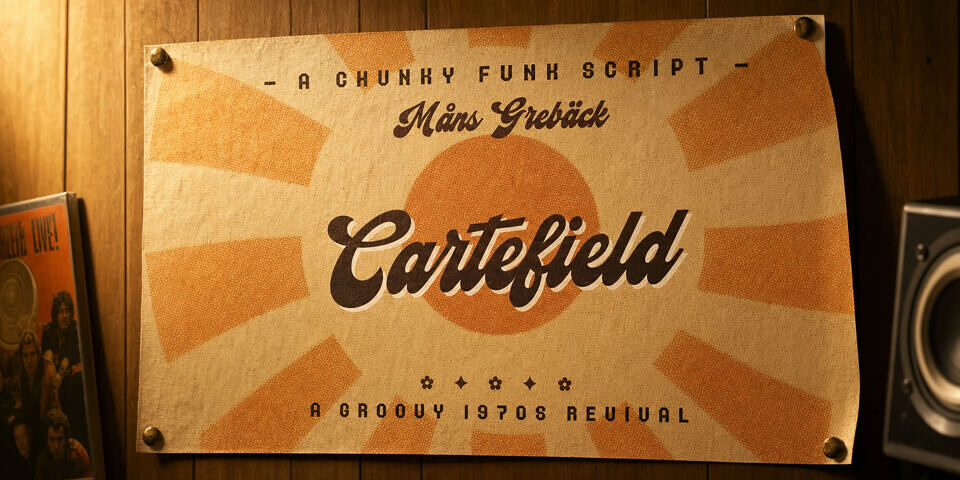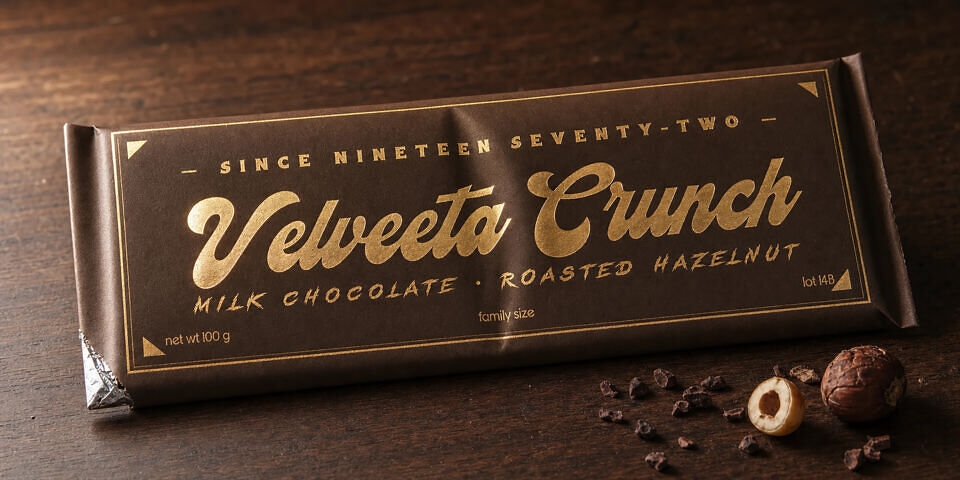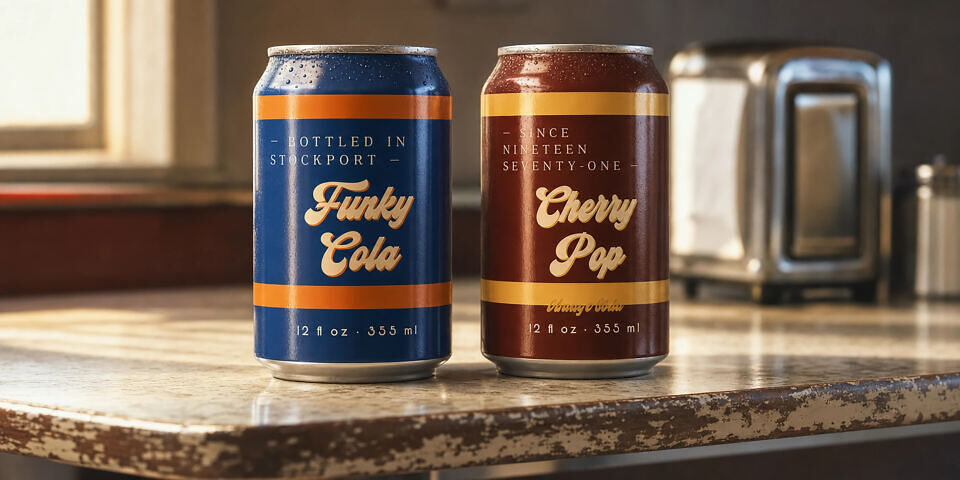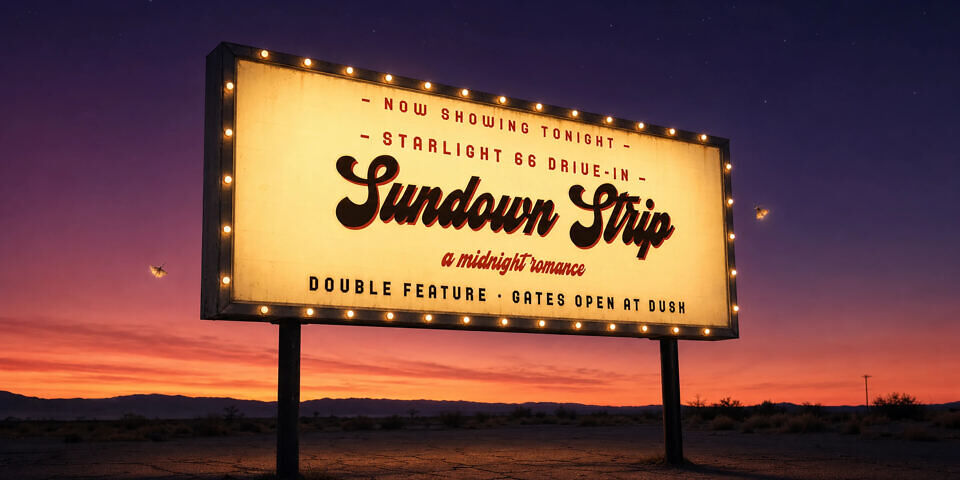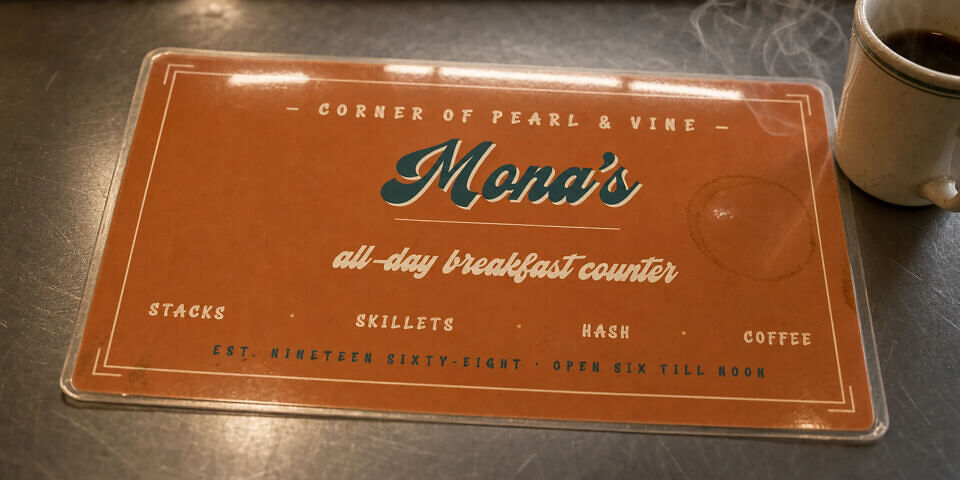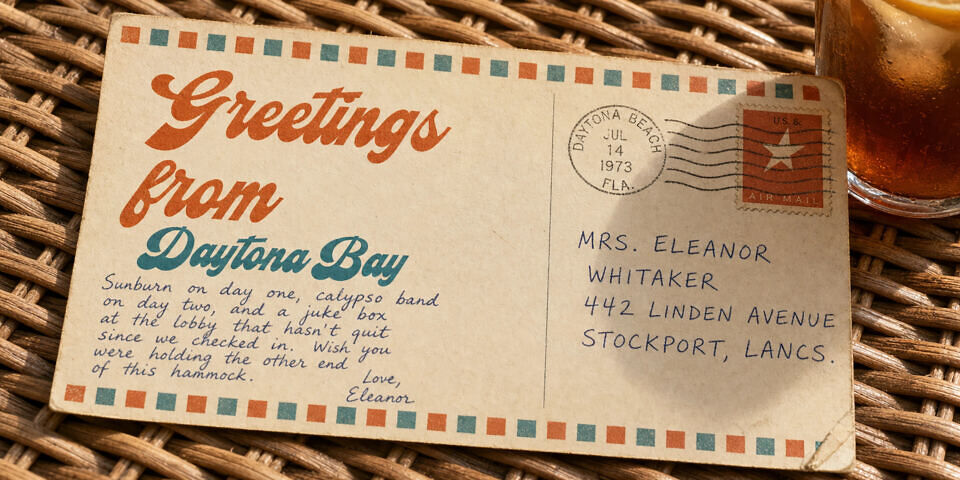
Cartefield Font
Cartefield is a chunky 70s funk script with wide, connected, super-bold letterforms. Thick rounded strokes, generous bowls, and a slight forward lean — the kind of script you find on a chocolate-bar wrapper or a soul-record sleeve from 1973.
Lowercase joins are smooth and the descenders are pronounced, giving it a deep groovy presence on a single line. Imagine it across the front of a foil-stamped vinyl sleeve with a sunburst printed behind it.
Designed by: Måns Grebäck